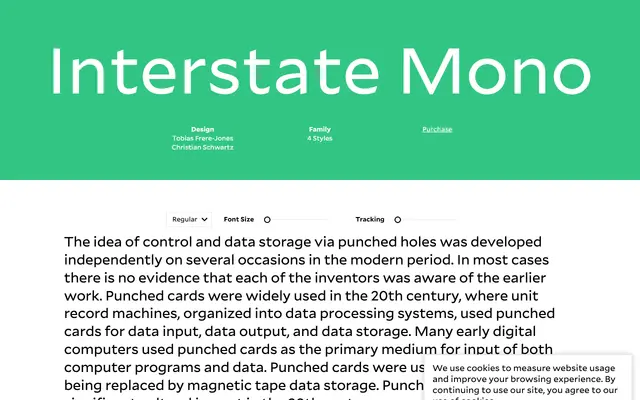
Interstate Mono
Frere-Jones · Tobias Frere-Jones, Christian Schwartz
Christian Schwartz's monospaced reworking of Interstate, commissioned by a bank and preserving the original family's distinctive quirks in fixed-width form.
Originally commissioned for a bank requiring monospaced settings, this four-weight family adapts the central weights of Frere-Jones's Interstate grotesque into a fixed-pitch format. Schwartz retained Interstate's characteristic eccentricities drawn from US highway signage while introducing new ones appropriate to the monospaced context. The result sits naturally in technical, data-heavy and editorial applications where the warmth of a humanist grotesque is needed alongside strict column alignment.
A monospaced adaptation of the Interstate grotesque family, preserving its highway-signage character while enforcing fixed-width metrics throughout all four weights.